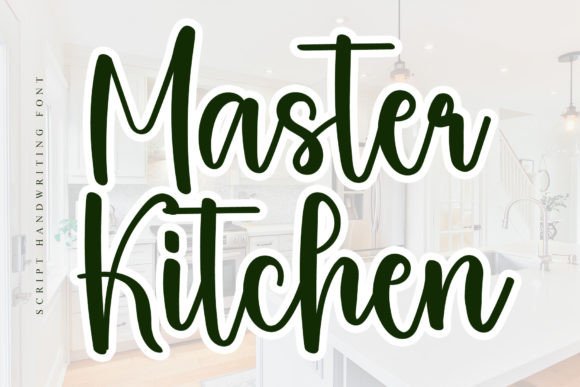
Step into the world of culinary elegance with Master Kitchen Font, a script typeface that embodies the essence of gastronomic delight. Inspired by the artistry of Michelin-starred chefs, this font dances across your screen like a symphony of flavors, leaving a trail of visual satisfaction.
Crafted by the talented Bintang Studio, Master Kitchen is a testament to the power of typography to evoke emotion and inspire creativity. Its graceful curves and delicate flourishes capture the essence of fine dining, inviting you to savor the beauty of each letterform.
Whether you're a culinary enthusiast, a passionate foodie, or simply someone who appreciates the finer things in life, Master Kitchen Font is the perfect choice to elevate your designs to new heights of sophistication.
Indulge in the sensory journey that Master Kitchen Font offers, as its elegant lines and refined details transport you to a realm of culinary bliss. From tantalizing menus to mouthwatering recipe books, this font is the ultimate ingredient to add a dash of sophistication to your culinary creations.